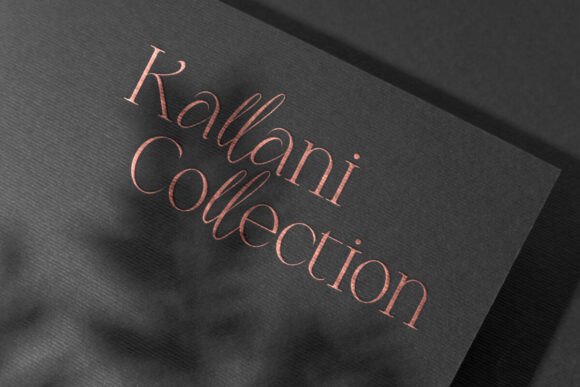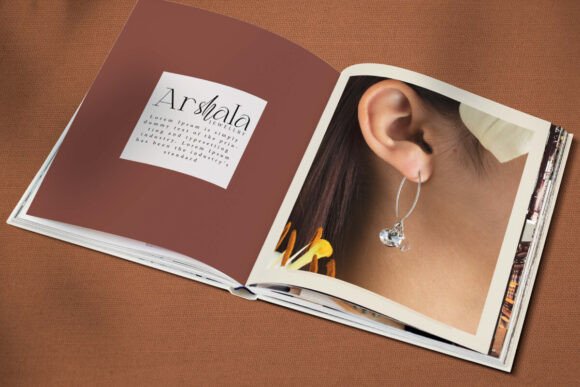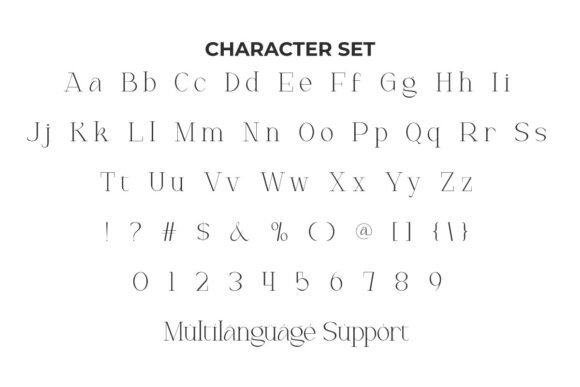
Introduction to Shine Valley Font
Have you ever found yourself in the midst of a creative project, searching for that perfect font to elevate your design? I’m sure we’ve all been there – scrolling through font libraries, trying to find that one special something that sets our work apart. It’s in these moments that we stumble upon treasures like the Shine Valley Font, a true gem in the world of typography.
As a valuable design resource, Shine Valley Font is an enchanting, elegant, and classy display font that combines two styles in perfect harmony. With its luxurious and feminine energy, it’s sure to add a touch of sophistication to any design project. Whether you’re working on a brand image, custom design, or product packaging, this high-quality font is a must-have in your toolkit.
Key Features of Shine Valley Font
- High-quality design resource with a unique, modern aesthetic, perfect for creative projects.
- Unique characteristics include elegant lines, subtle textures, and a sense of sophistication, making it an ideal choice for creative projects.
Honest Review: Shine Valley Font
As a designer, I’m always on the lookout for high-quality design resources to elevate my creative projects. Recently, I stumbled upon the Shine Valley Font, and I’m excited to share my thoughts on it.
Here’s what I like about the Shine Valley Font:
- ✨ Beautiful and elegant script font with a modern twist
- ⚠️ Limited font variations, which may not be suitable for complex design projects
- ⚠️ Not suitable for large-scale text, as it may lose its legibility
Overall, I’m impressed with the Shine Valley Font. Its elegant script and modern feel make it perfect for invitations, social media graphics, and other creative projects. While it may not be the most versatile font, its high quality and free download make it a valuable addition to any designer’s toolkit.
Shine Valley Font Overview
The Shine Valley Font is a high-quality design resource ideal for creative projects. It features a transparent background, making it perfect for overlays, text effects, and other design elements.
Tips for Getting the Most Out of Shine Valley Font
Experiment with different font sizes, colors, and effects to create unique and engaging designs. Use the font in combination with other design elements to create a cohesive look.
The Shine Valley Font is ideal for various creative projects, including branding, marketing materials, and digital products. It’s perfect for designers, marketers, and entrepreneurs looking for a high-quality design resource.